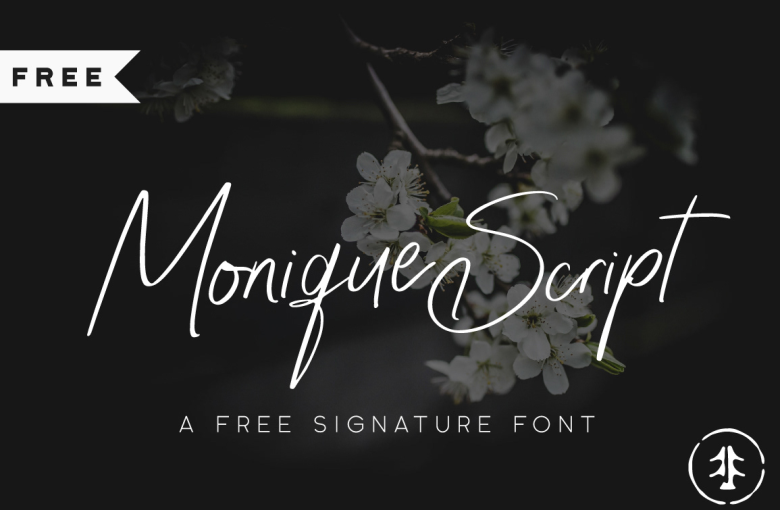
Monique Script Font
Monique is an signature font created by Font Forestry. Add a hand written touch to your magazine layouts, lettering, logo designs, quotes, packaging, social media, branding, wedding invitations and cards.